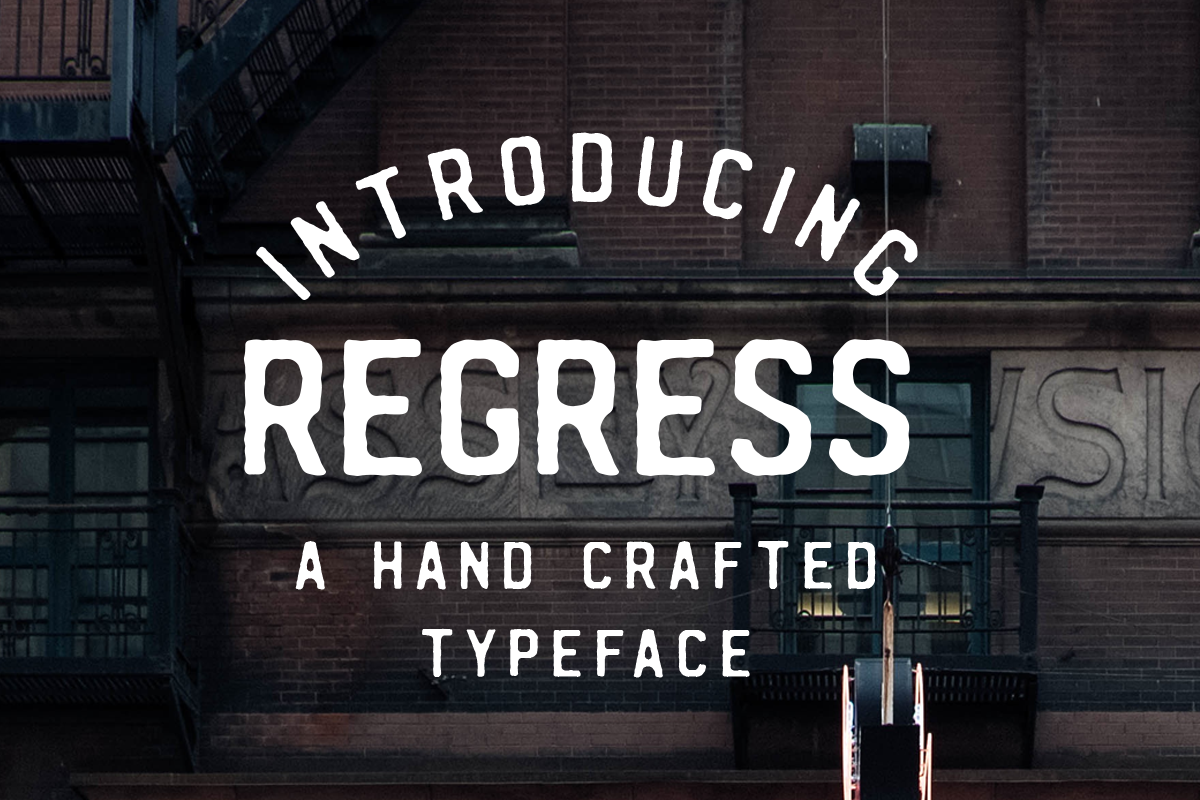
REGRESS - A hand crafted typeface
I am super stoked to present my latest typeface: REGRESS!
These hand-crafted letters were inspired by vintage posters of the mid-1900's. The soft, rugged edges are great for adding character to your designs and giving them that hand made feel.
I've got big plans for this typeface, and you can expect punctuation, numbers and plenty more to be added really soon! Anyone who purchases this font receives free updates for life.